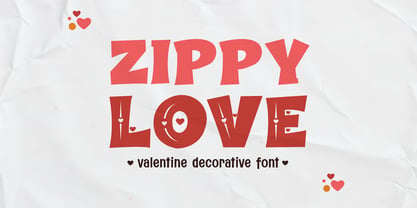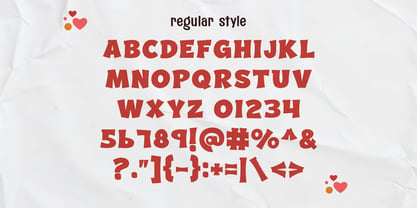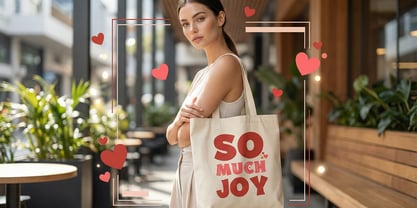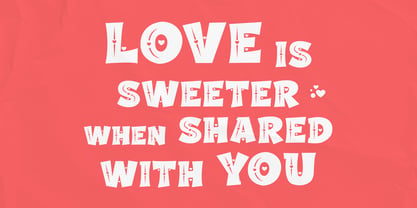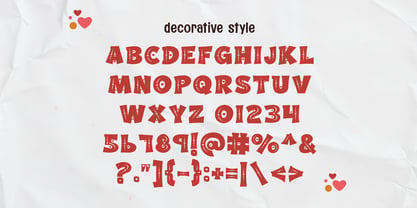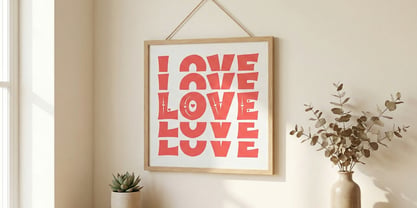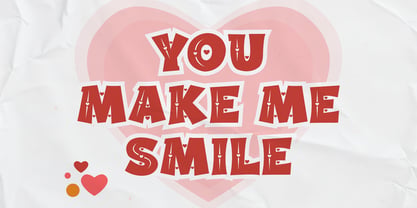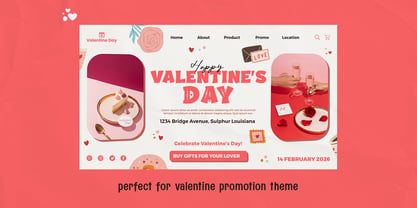
Zippy Love is a playful and expressive Valentine decorative typeface designed to celebrate love, joy, and cheerful emotion through bold letterforms and charming details. Created with a balance between fun readability and decorative personality, Zippy Love features two distinctive styles: Regular (Clean) and Decorative (Love). This dual-style system gives designers flexibility to switch between simple bold lettering and heart-filled decorative characters within the same visual identity.
The Regular style offers clean, rounded, and friendly letter shapes that feel warm and approachable. It is perfect for readable headlines, product titles, greeting text, and layouts that need clarity without losing personality. The Decorative style introduces heart-shaped cutouts and love-themed details embedded directly into the letterforms, adding emotional charm and visual storytelling to every word.
Inspired by Valentine’s Day aesthetics, retro greeting cards, romantic packaging, and cute display typography, Zippy Love delivers a strong visual impact while remaining versatile for a wide range of creative projects. The bold structure ensures excellent readability at large sizes, making it ideal for posters, signage, and digital graphics.
Zippy Love works beautifully for Valentine cards, wedding invitations, love quotes, children’s products, gift packaging, stickers, apparel designs, mugs, tote bags, social media posts, Instagram quotes, Pinterest graphics, event banners, party decorations, and seasonal promotions. Its cheerful tone also makes it suitable for kids-related designs, playful branding, and lifestyle products.
The Decorative style shines when used for emphasis words, romantic headlines, or playful accents, while the Regular style supports longer text compositions. Designers can mix both styles in one layout to create hierarchy, contrast, and emotional rhythm without needing additional fonts.
This typeface supports uppercase letters, numbers, and punctuation, ensuring flexibility across branding and commercial projects. Its smooth curves and friendly proportions make it easy to pair with illustrations, pastel color palettes, paper textures, and soft gradients commonly used in Valentine and love-themed visuals.
Zippy Love is designed for creators who want their typography to feel warm, cute, and expressive. It brings happiness and emotional connection into design, helping messages feel more personal, romantic, and joyful. Whether used in print or digital formats, Zippy Love maintains its decorative charm and strong presence.
If you are looking for a Valentine-inspired decorative typeface that blends playful energy with professional usability, Zippy Love is the perfect choice to elevate your designs with love-filled character.